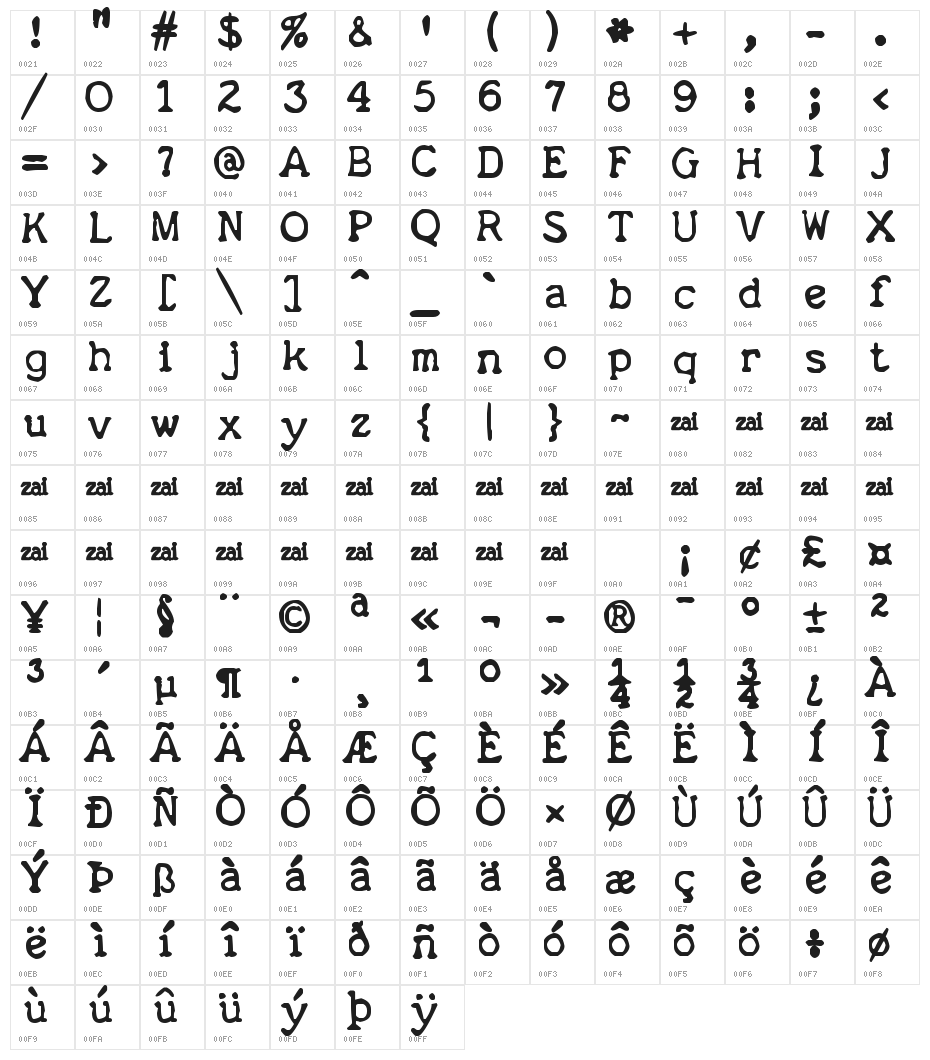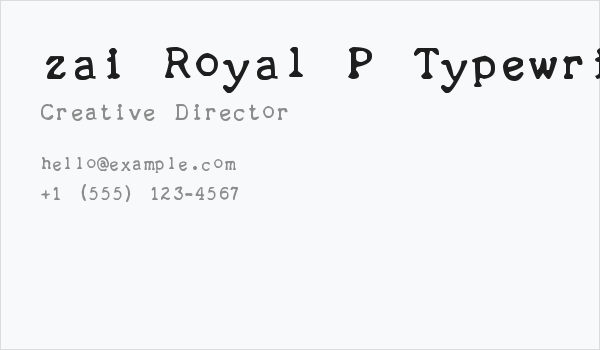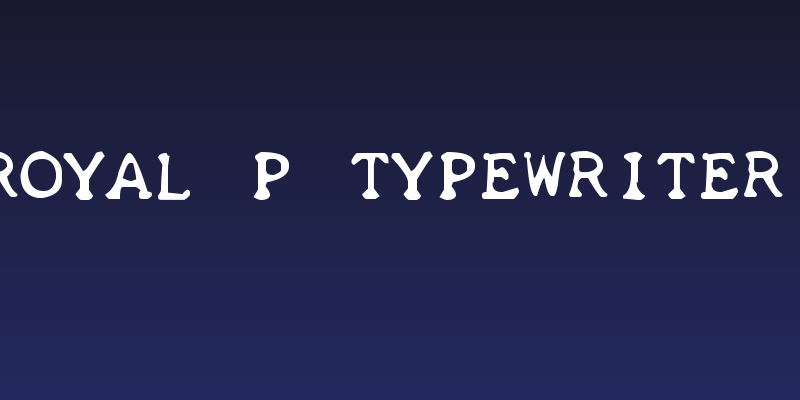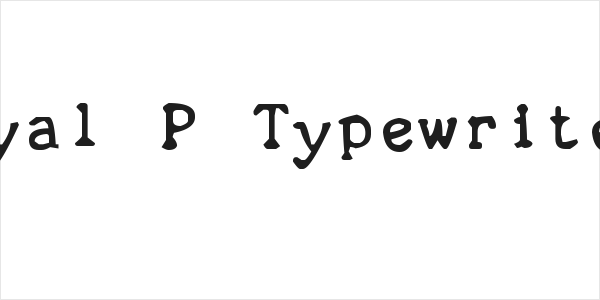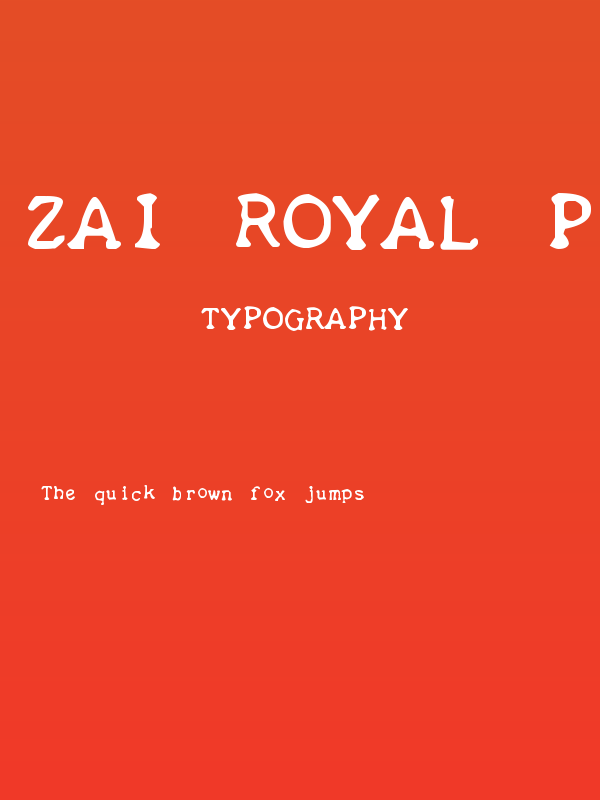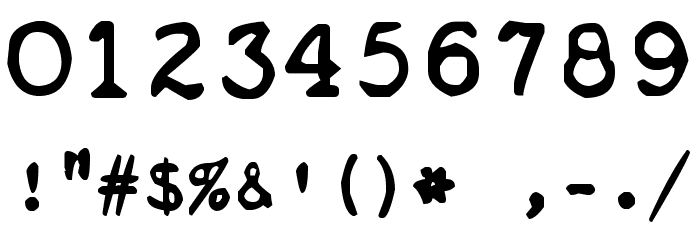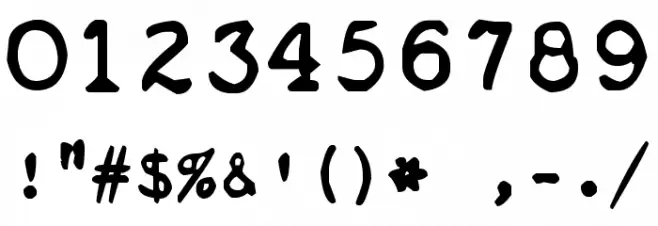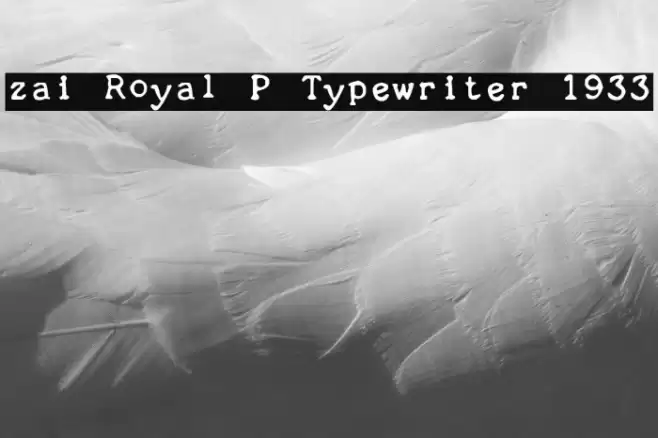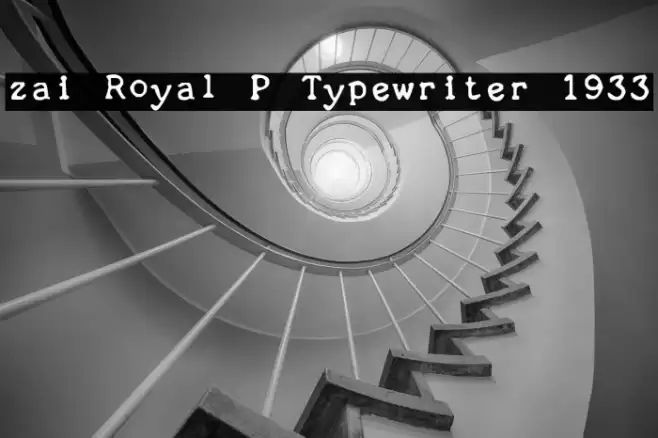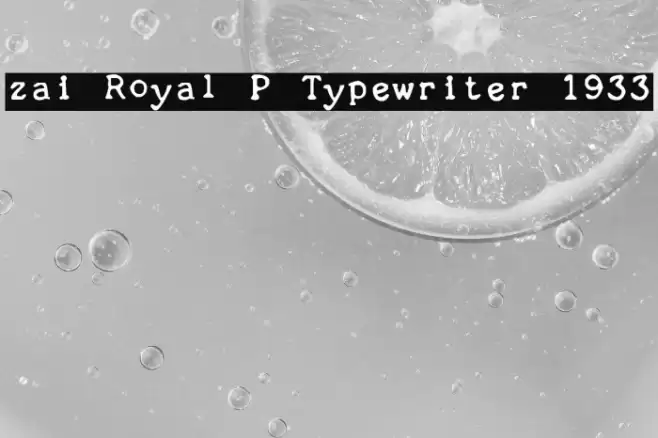
zai Royal P Typewriter 1933 Font
zai Royal P Typewriter 1933 Description
This typewriter-style font exudes a vintage charm with its irregular, slightly distressed letterforms. Each character appears as if it has been typed on an old mechanical typewriter, featuring subtle variations and imperfections that add to its authenticity. The uppercase and lowercase letters maintain a consistent style, with rounded edges and a slightly bold appearance. Numbers and special characters follow the same aesthetic, making the font versatile for various uses. Its nostalgic appeal makes it ideal for projects that require a retro or classic touch.
| Overall Style | Vintage |
| Proposed Projects | Ideal for retro-themed designs, vintage posters, typewriter emulations, and creative projects requiring a classic touch. |